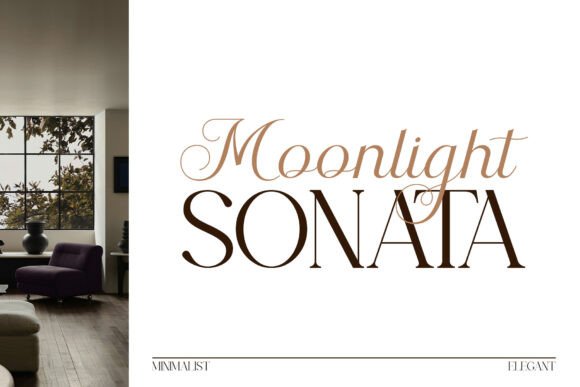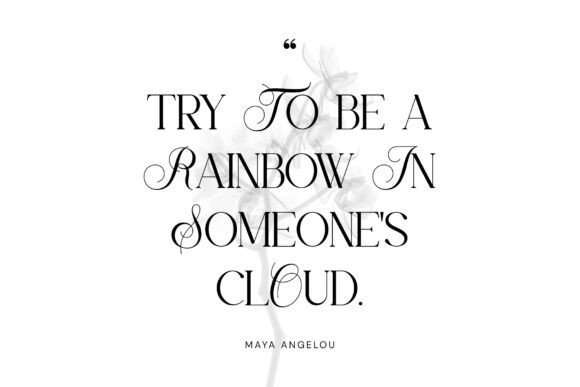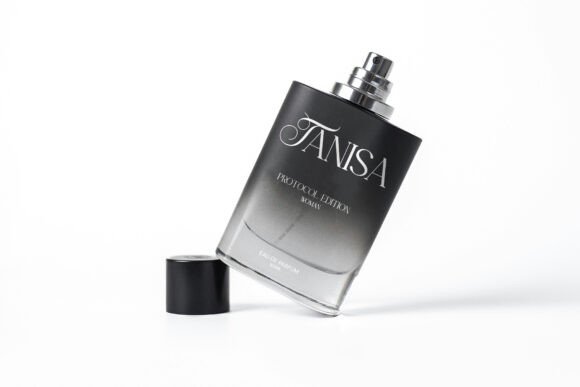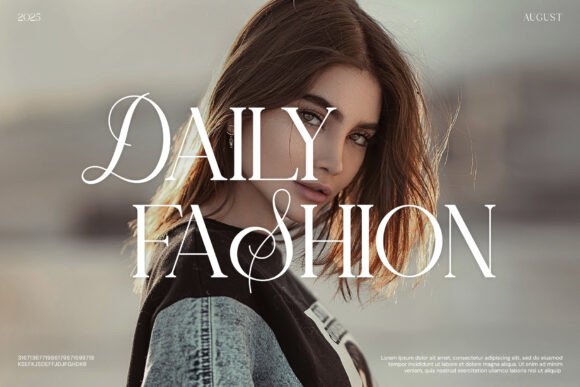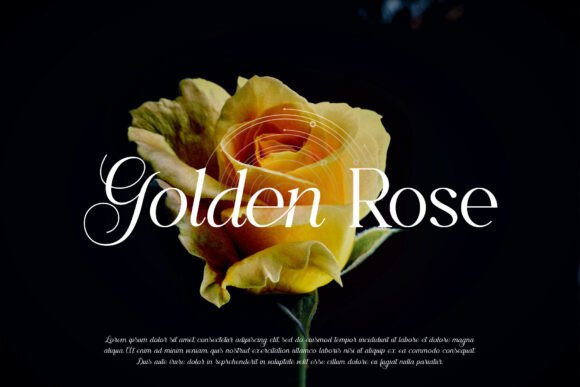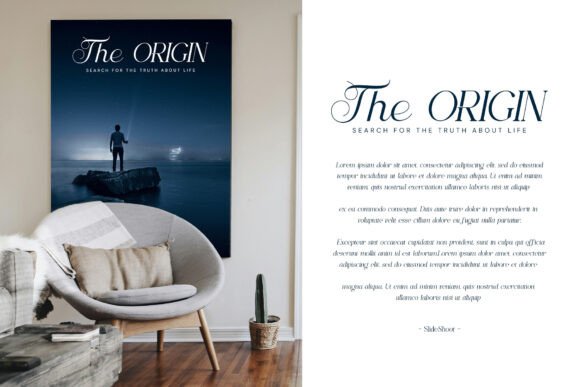
Introduction to Kreata Agnore Font
Kreata Agnore is a completely new typeface, unique, classy and modern.
These fonts include regular, italic and script serif fonts best used for titles, logos, branding, magazines, product packaging and invitations Its stylish turns and ties with clean lines and smooth curves add an extra touch of class to any project.